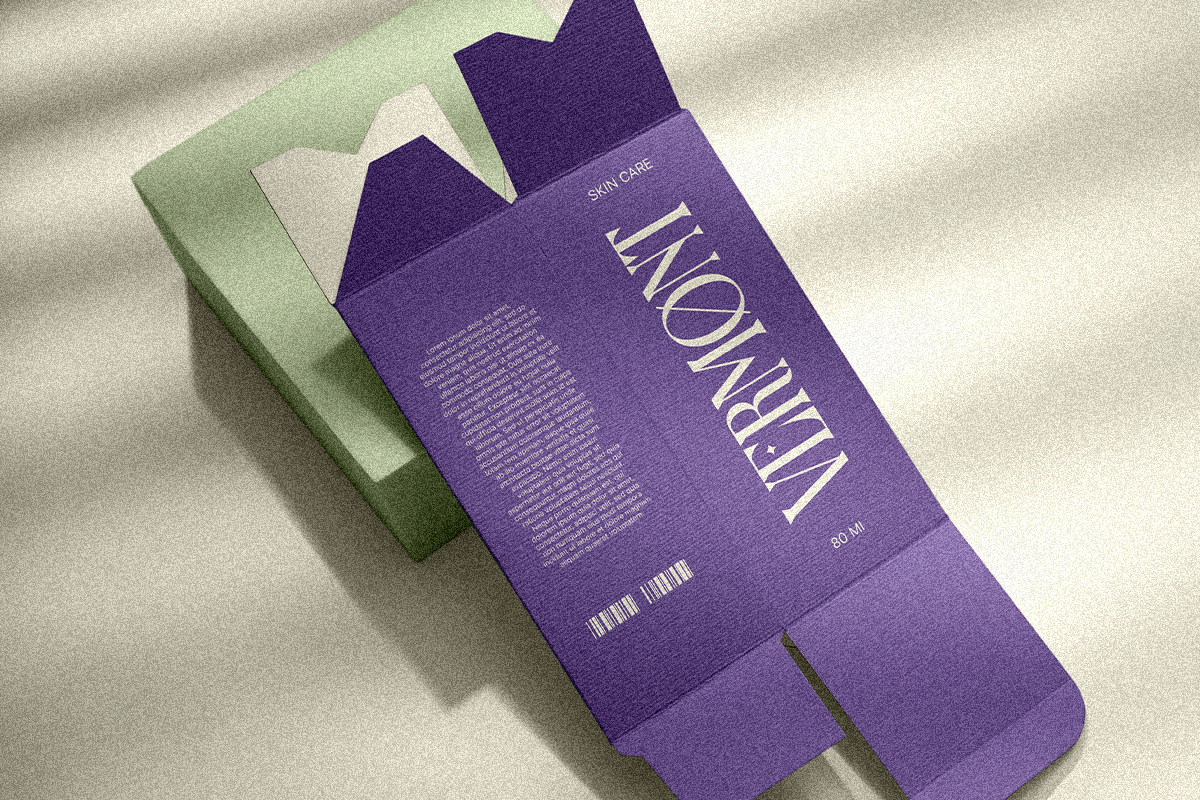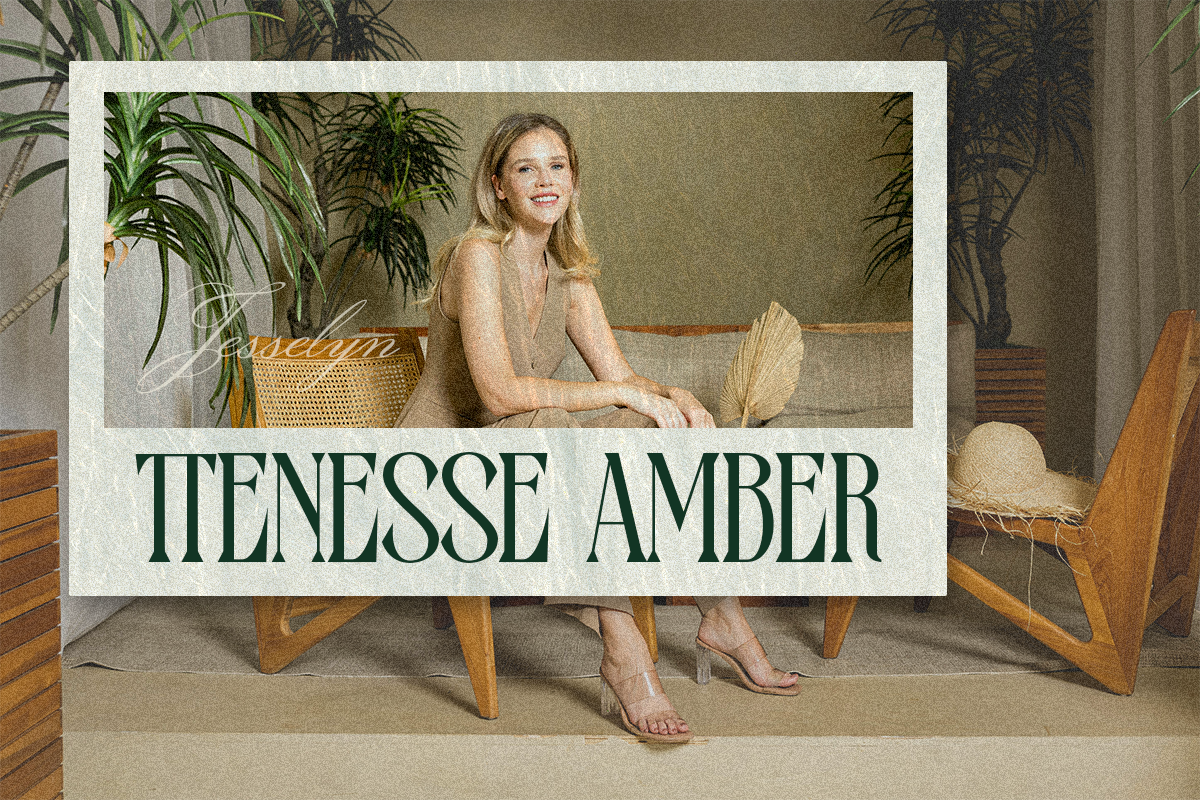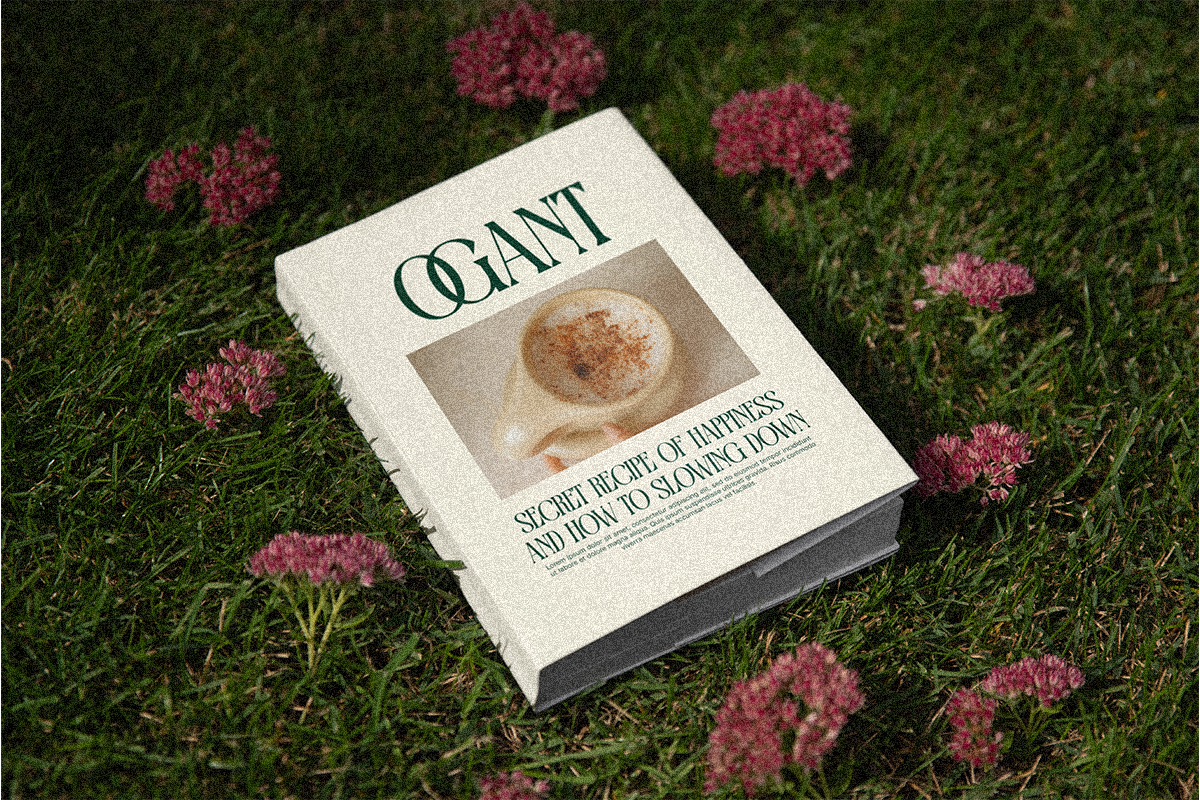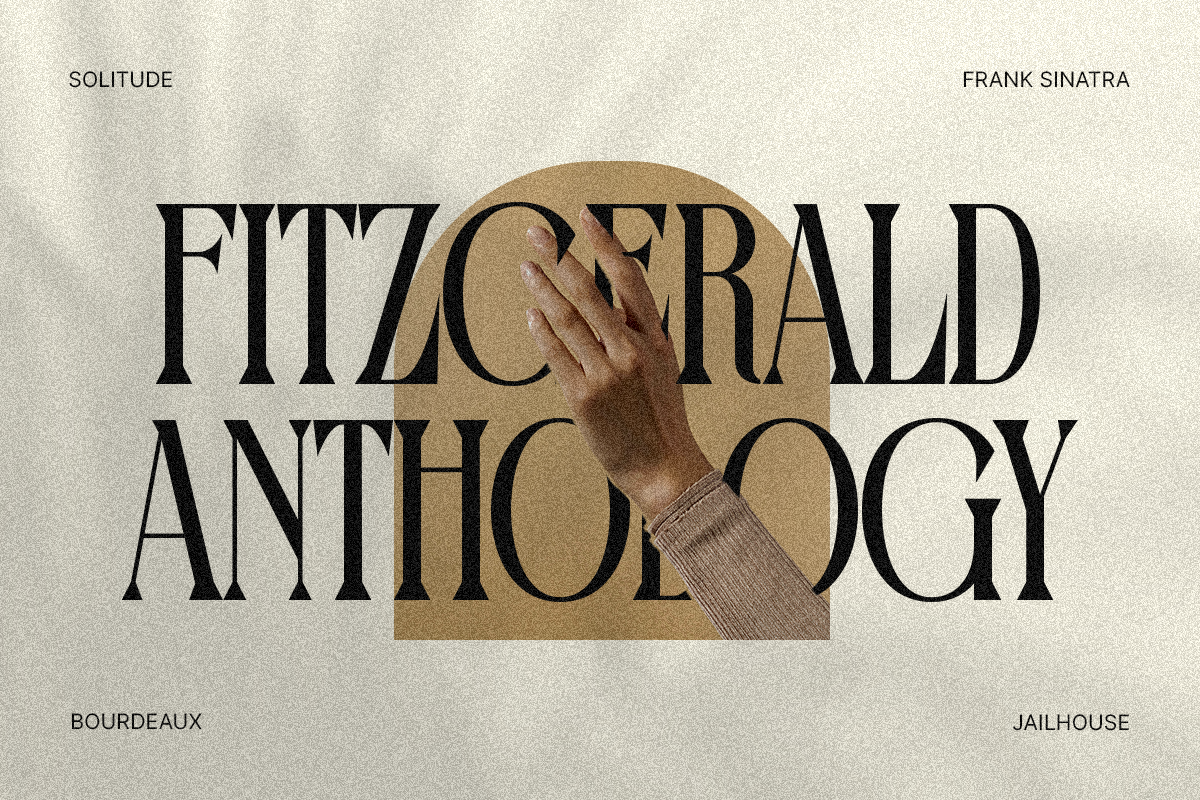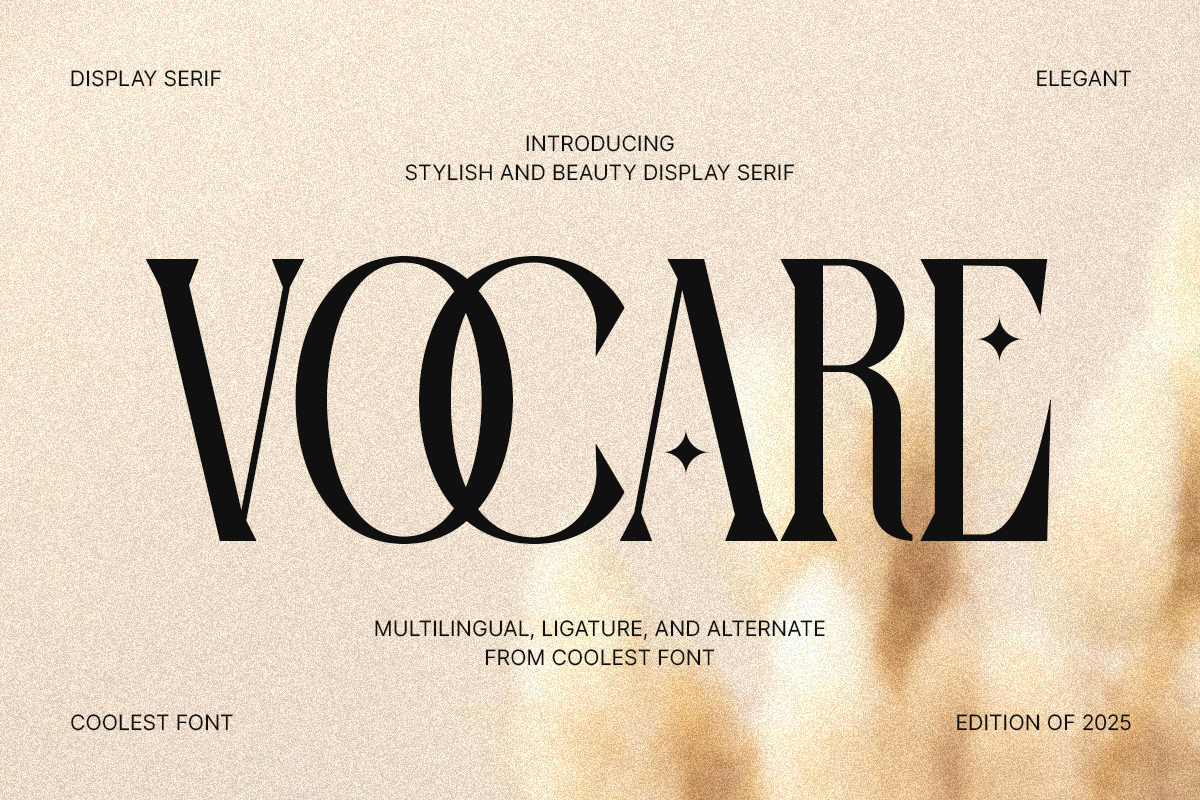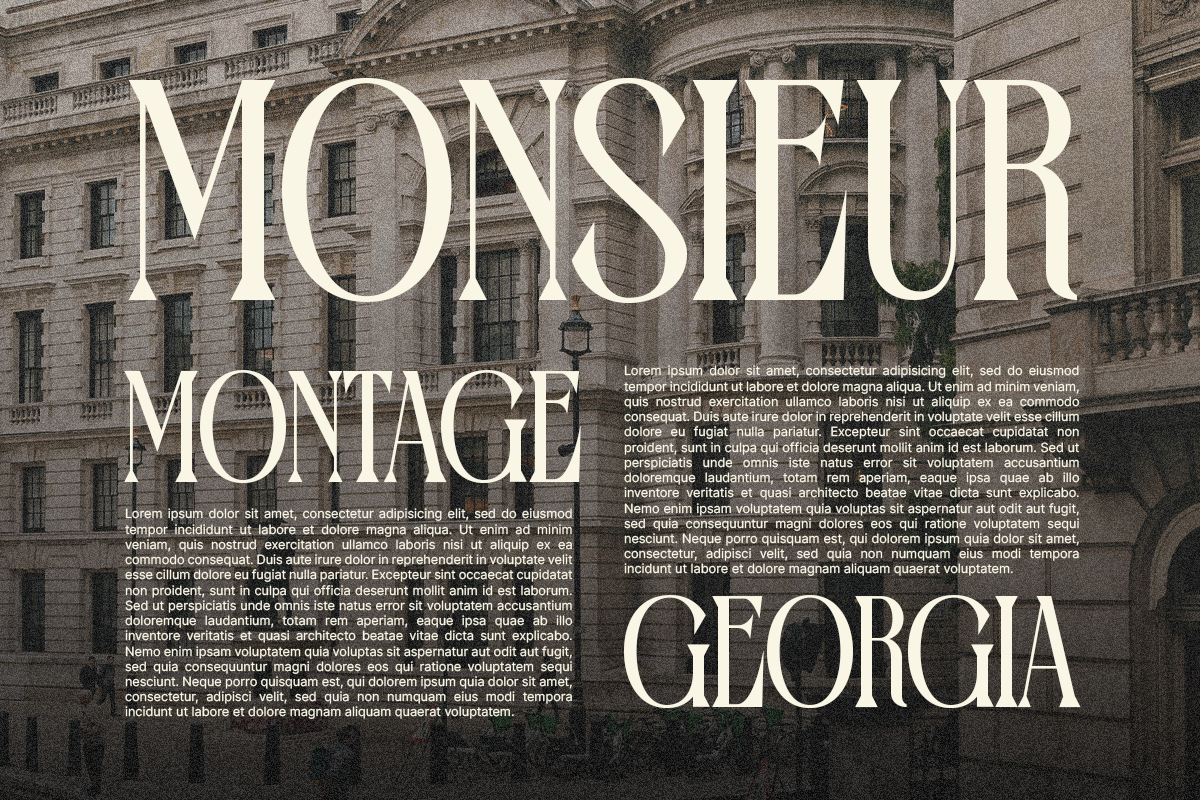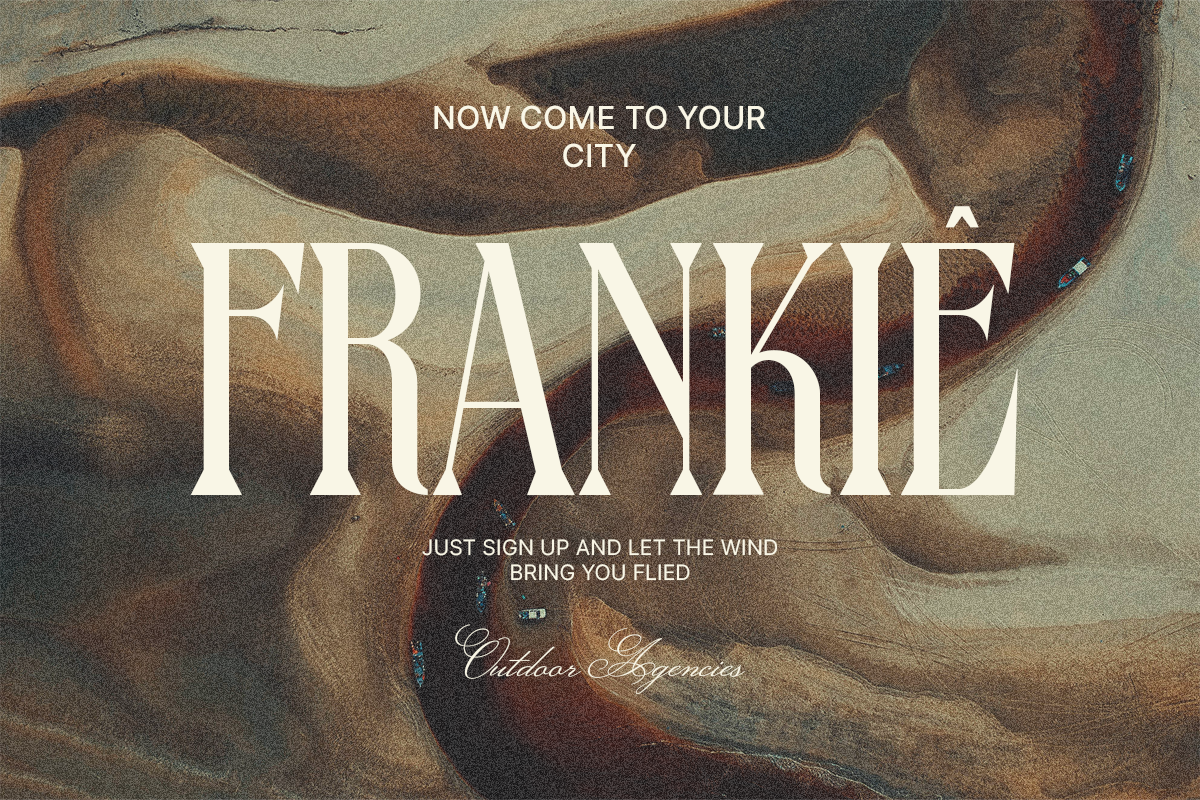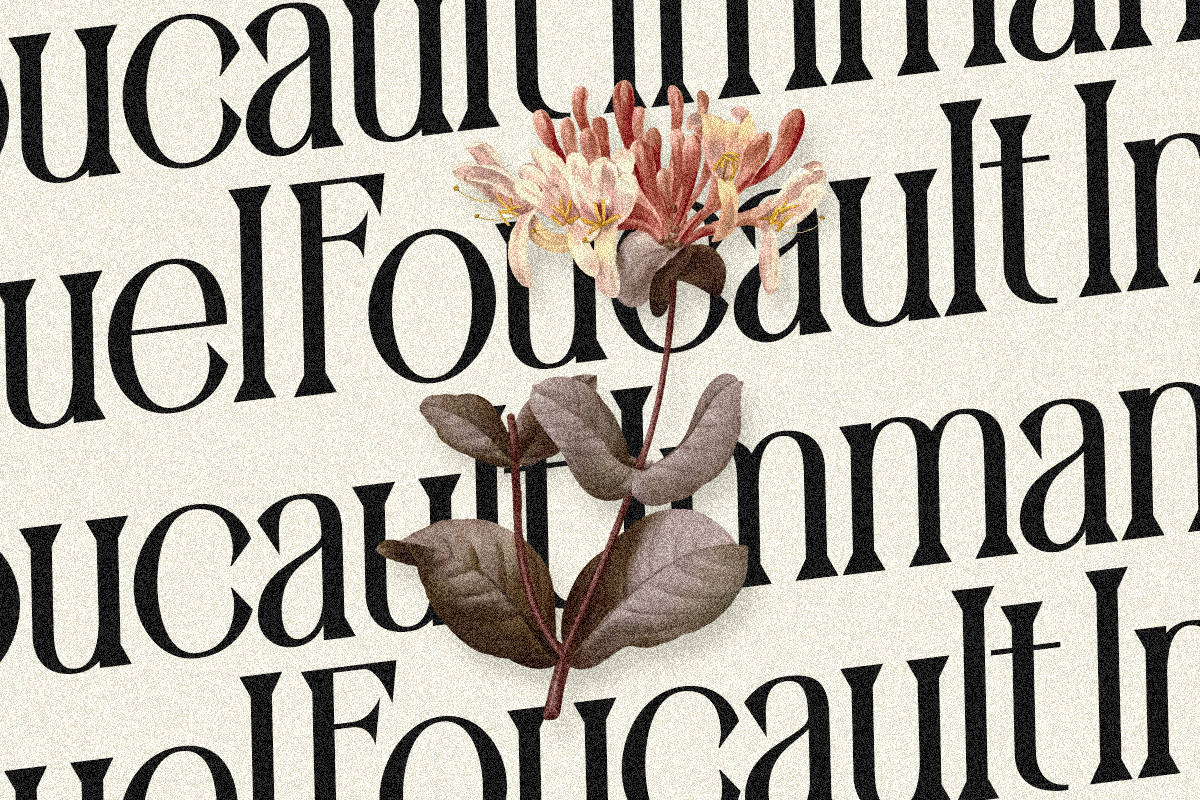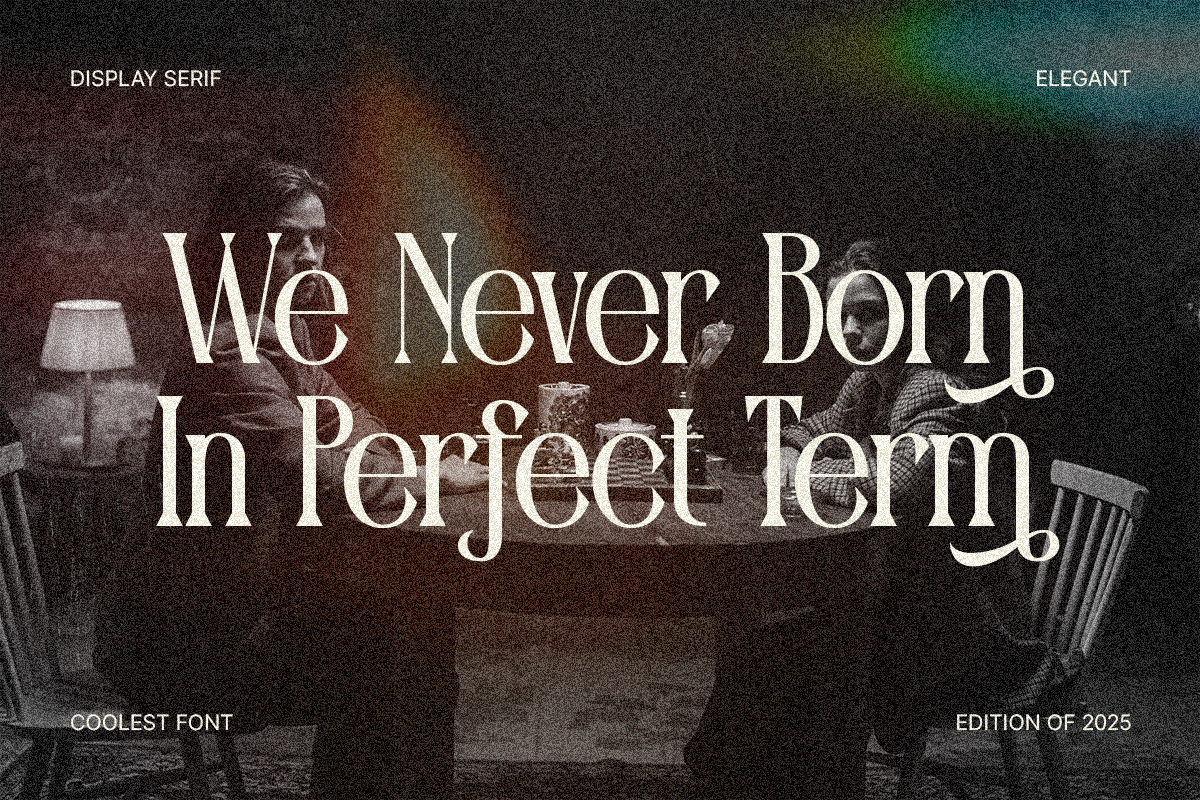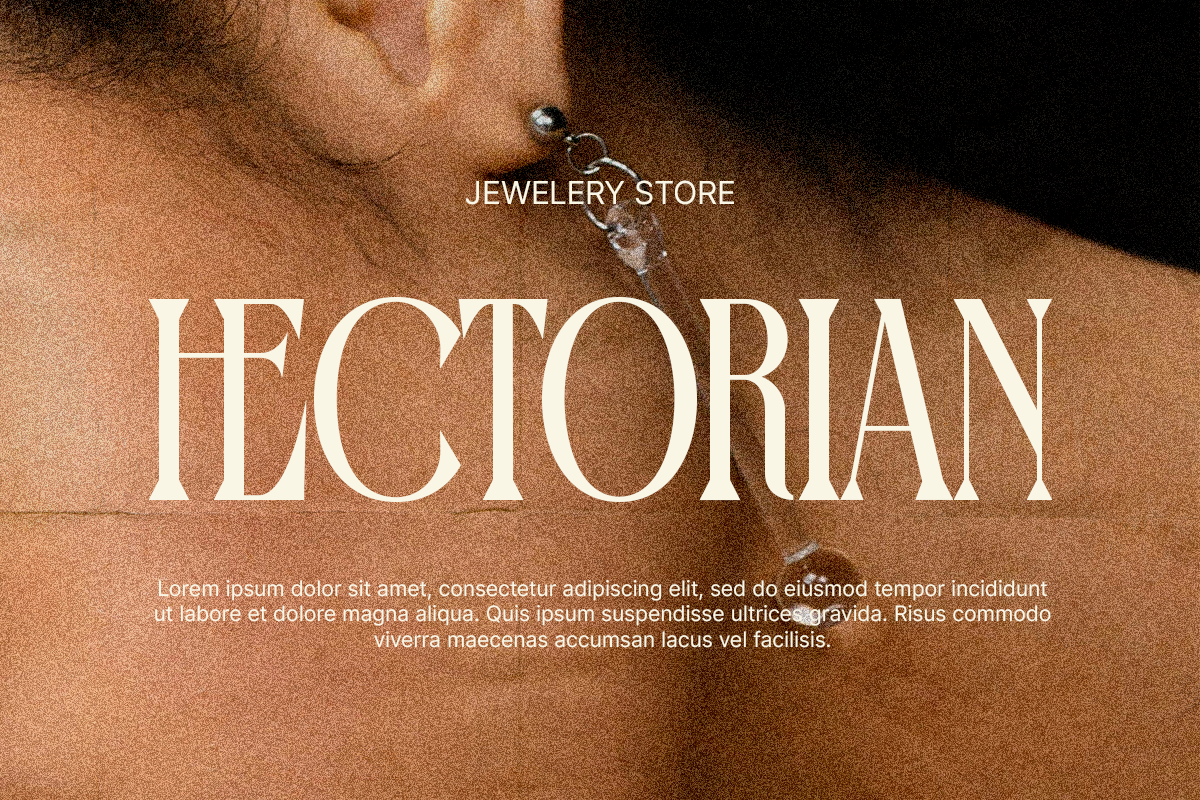
VOCARE – Elegant Serif Typeface
Say hello to VOCARE, a sophisticated serif font that blends timeless elegance with modern refinement. Designed for creatives who appreciate luxury and clarity, VOCARE is perfect for fashion branding, editorial layouts, invitations, and packaging.
✨ With high-contrast strokes, beautiful ligatures, and sleek curves, this font adds instant class to any project.
Whether you're building a brand or polishing a portfolio, VOCARE is your go-to font for elegant expression.